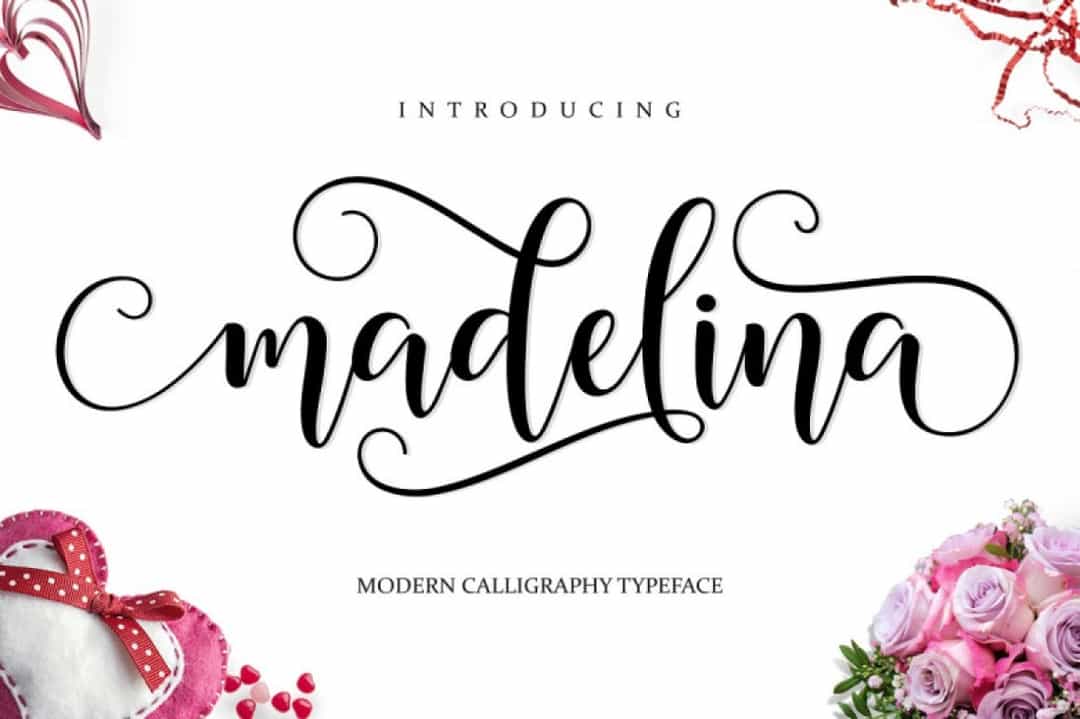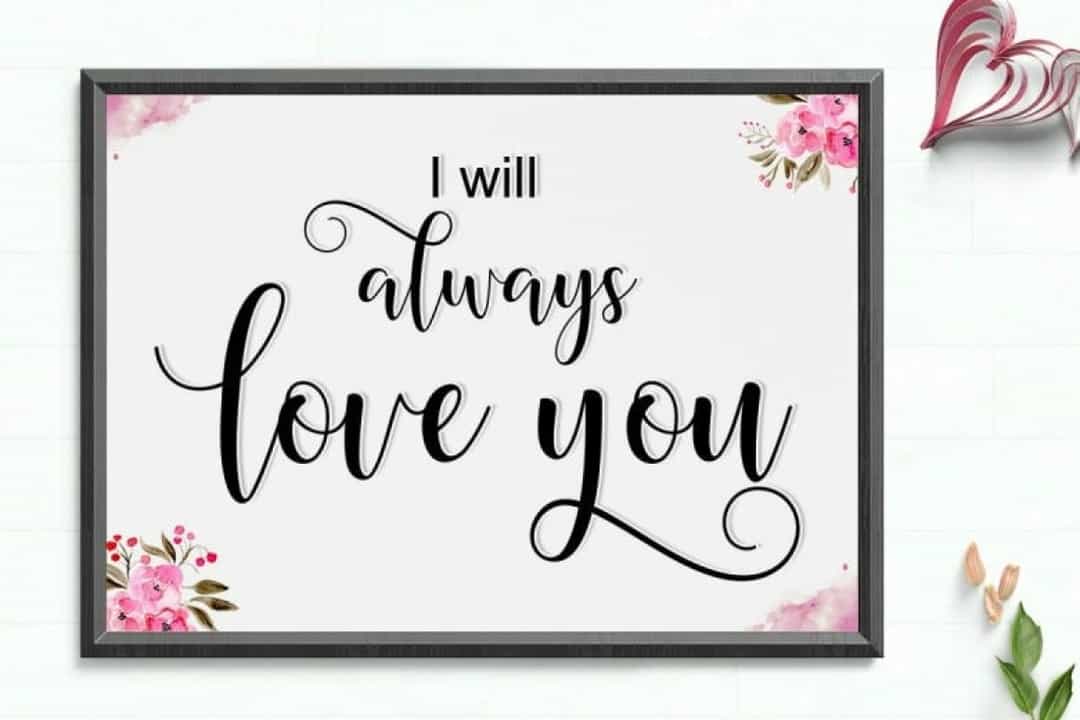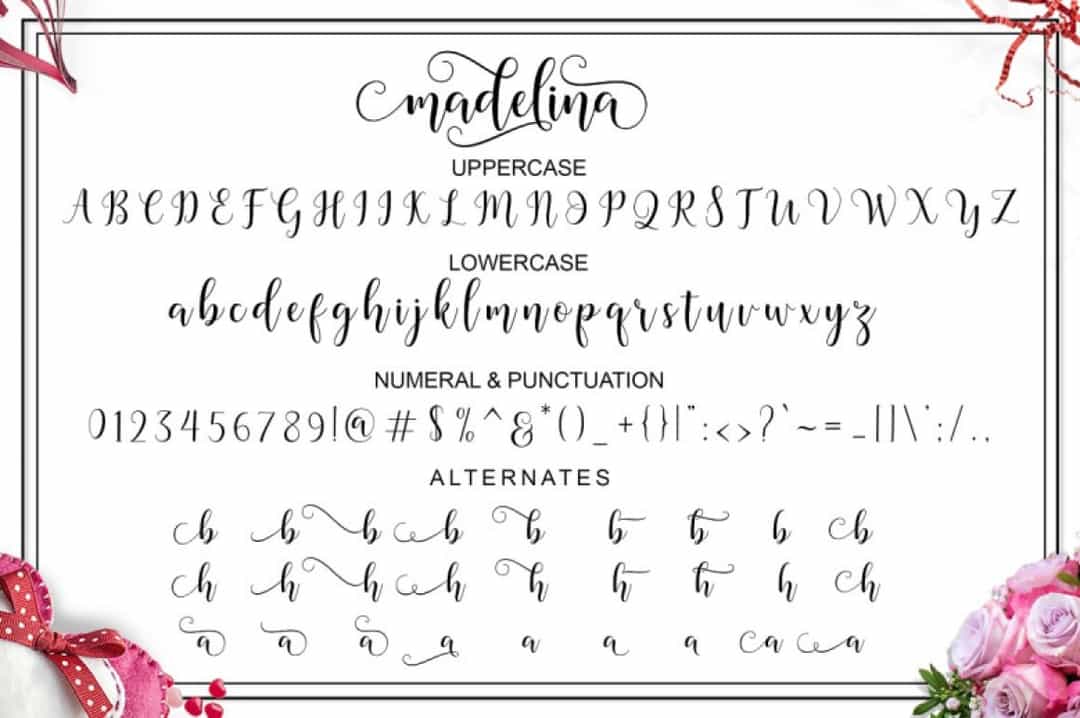
Introducing Madelina by Amarlettering. Madelina is a script and it is more contemporary than traditional script fonts with hand written calligraphy style letters and with beautiful characters and unintensional base and therefore it’s suitable for invitations more like greeting card and for corporate cards and branding material and on posters and on quotations and even on Instagram stories and etc.